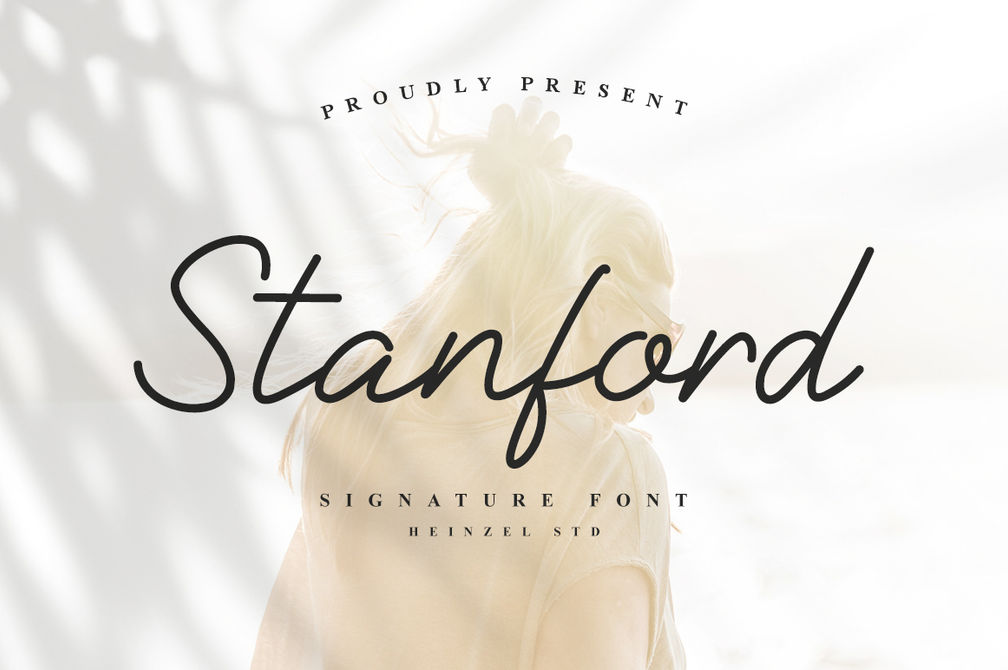
Stanford Signature Font
Stanford is an elegant signature script font designed to bring a sophisticated, personal, and effortlessly stylish feel to your creative projects. With its smooth handwritten strokes, flowing connections, and refined character, Stanford creates the authentic look of a beautifully written signature while maintaining a clean and modern appearance.
Perfect for logos, branding, fashion designs, beauty products, wedding stationery, invitations, social media graphics, photography, packaging, personal branding, and editorial projects, Stanford adds a luxurious handwritten touch to both minimalist and expressive designs.
Its graceful letterforms make it especially suitable for projects that need a feminine, elegant, romantic, and premium aesthetic. Whether you’re creating a boutique logo, fashion brand identity, wedding invitation, product packaging, or stylish social media content, Stanford helps your typography feel personal and memorable.